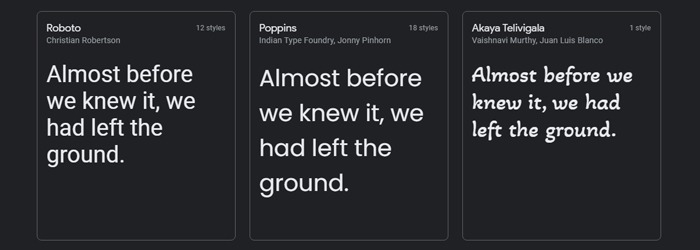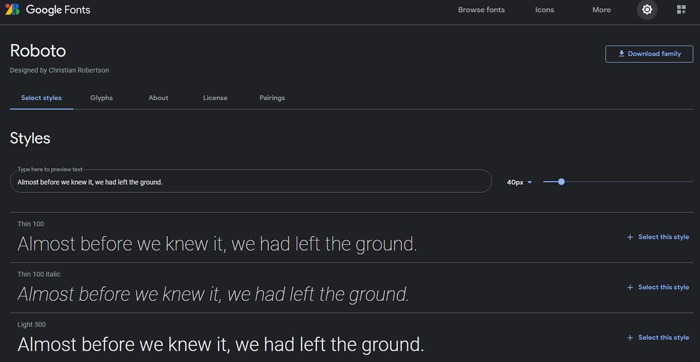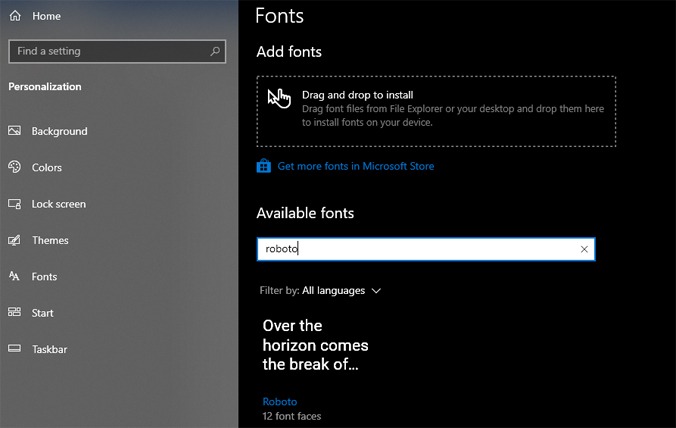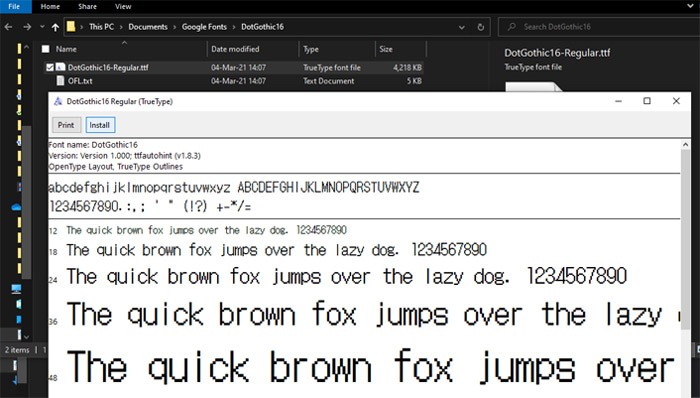
Google Fonts presents a free way to enrich your textual output, from web content to articles and ebooks. With this guide, you will be able to download and install Google Fonts, making differently-styled letters key in your digital toolset to make text more readable. From the Star Wars intro scene to gothic prose, fonts relay the tone of your text and to which audience they are catering to.
What Are Google Fonts?
Thanks to digital technology, there are more font types now than have ever existed in the entire history prior to the industrial revolution. With a quick search, you can easily find at least half a million fonts to select from. Many of them have to be bought, but most of them are available for free.
Thankfully, Google Fonts falls into the latter category. It’s a collection of over 1,000 free, open-source font families. A font family just means that a font type contains further substyles – varying degrees of letter thickness and italics.
Some font families contain a single style, while others contain multiple styles, as you can see in the case of Roboto – 12 styles within a single font family!
It bears remembering that the Google Fonts collection was formerly called Google Web Fonts when launched in 2010. The goal was to expand and enrich the variety of web content by making it take advantage of API (Application Programming Interface).
Every time your web browser connects to the Internet, it sends a request from the server to access content, which is then represented accordingly. Web APIs process those requests and display the content, drawing from the available font sets on the server. This means that Google Fonts are completely free!
Why Would You Need Google Fonts?
Those who are students of marketing know very well the importance of typography in delivering any type of message – from launching a new product to scholastic work. Each typography represents a brand personality, making your content stand out from the crowd.
2. Select the font family that is most appealing to your needs. You can preview each font style to make double-sure it is the right one. Roboto is quite a readable, generalist font, suited for a wide range of uses.
10. That’s it! To double-check if it is installed, just type the name of it in the search bar, and it will show up as an available font.
11. If you’ve downloaded fonts containing only a single style, it is easier to simply double-click on them to install them. After they open, just click on the “Install” button.
How to Install Google Fonts on macOS
The download and extracting procedure is the same as for Windows 10.
1. Once downloaded, open the font file by double-clicking on it. This opens the Font Book app, which allows you to preview the font you double-clicked to install.
2. After you are satisfied with your selection of fonts, click on Install.